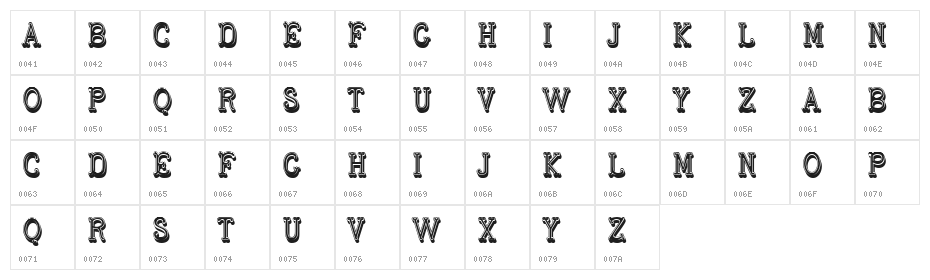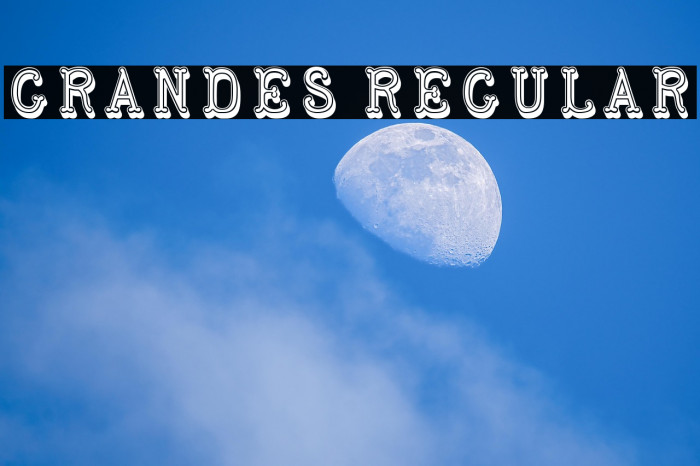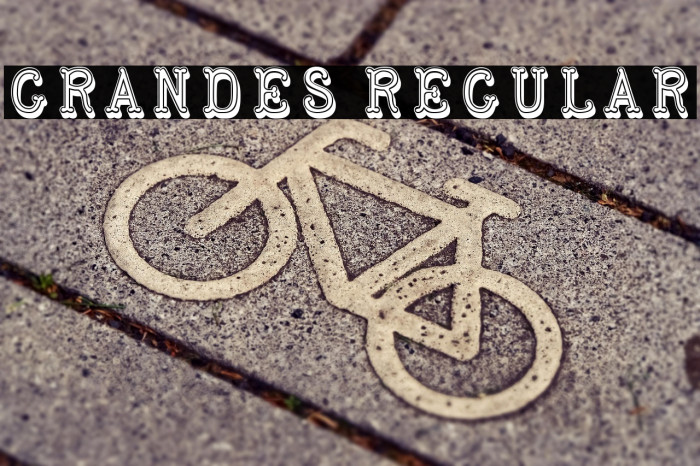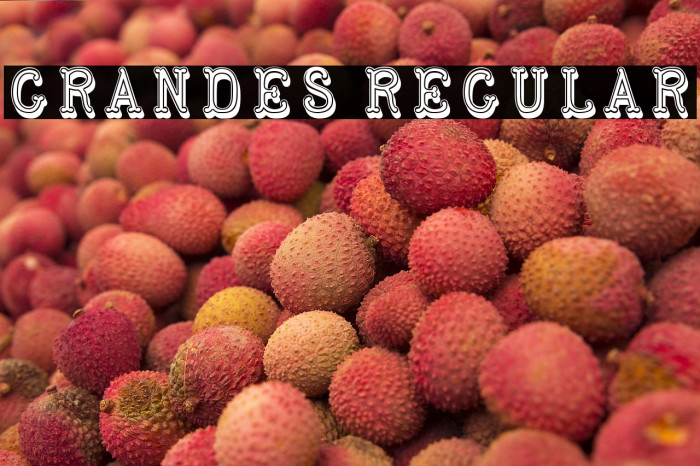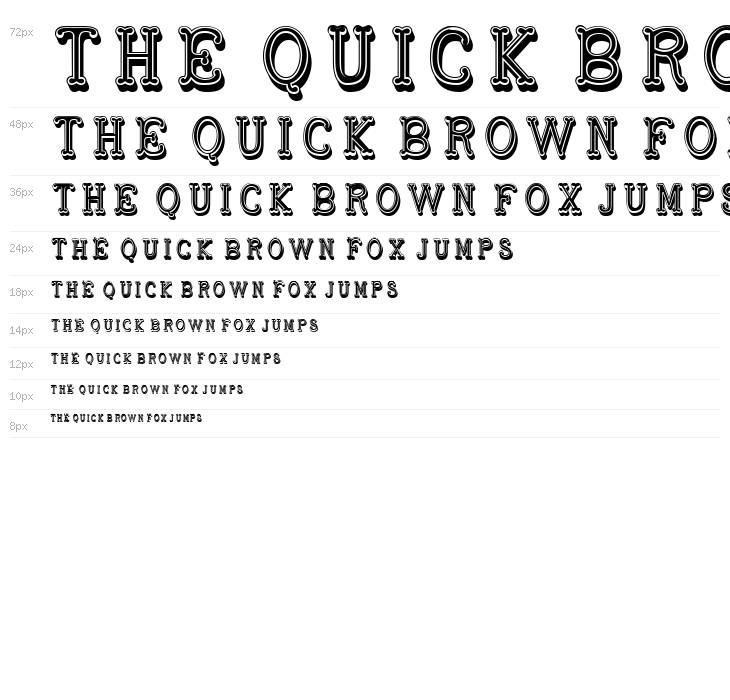
Grandes Regular Font
Grandes Regular Description
This font features a bold, decorative style with intricate detailing that gives it a vintage and ornate appearance. Each character is outlined with a thick border, adding to its boldness and making it stand out prominently. The interior of the letters is filled with a pattern that enhances its decorative nature. The overall design is reminiscent of classic signage or poster fonts, often used in contexts where a strong visual impact is desired. The uppercase letters are particularly striking, with their elaborate serifs and unique embellishments. The font's style is consistent across all characters, maintaining a cohesive look that is both eye-catching and elegant.
Overall StyleVintage
Proposed ProjectsIdeal for vintage-themed posters, signage, branding, and any project requiring a bold, decorative typeface.